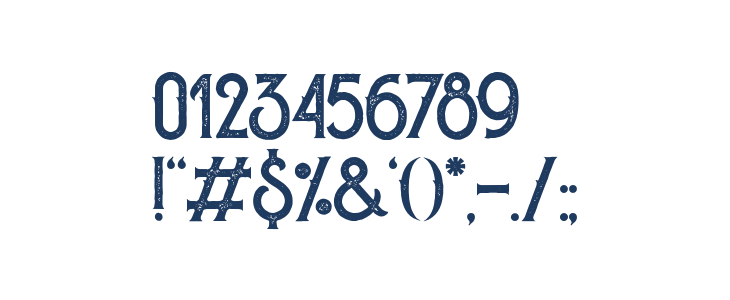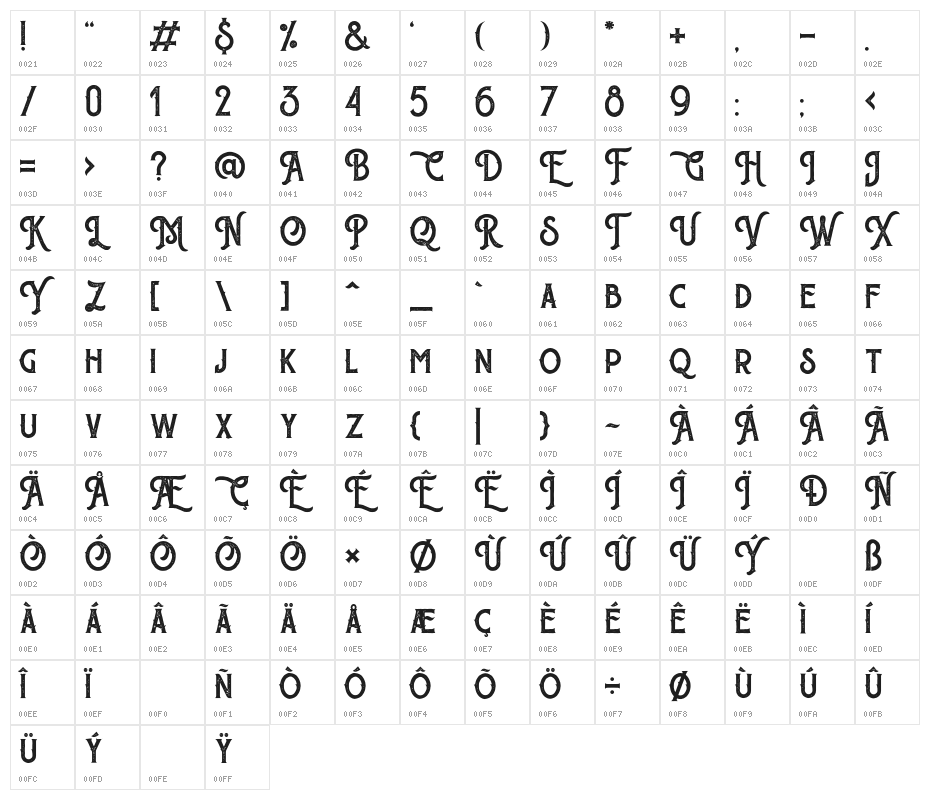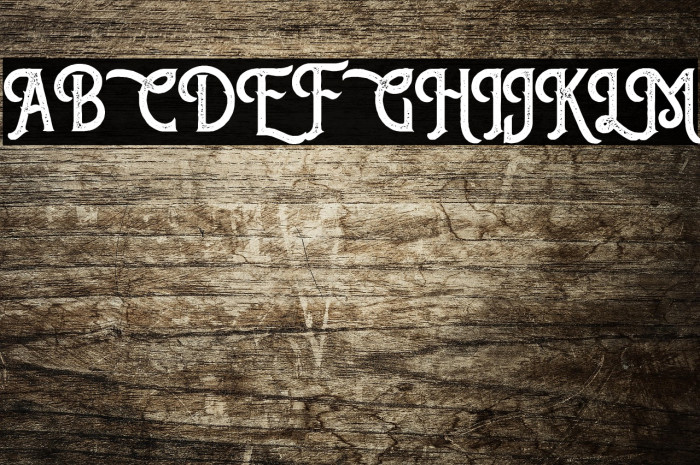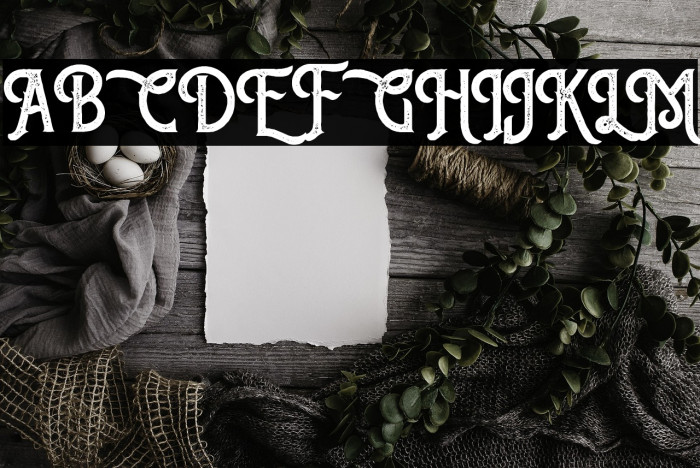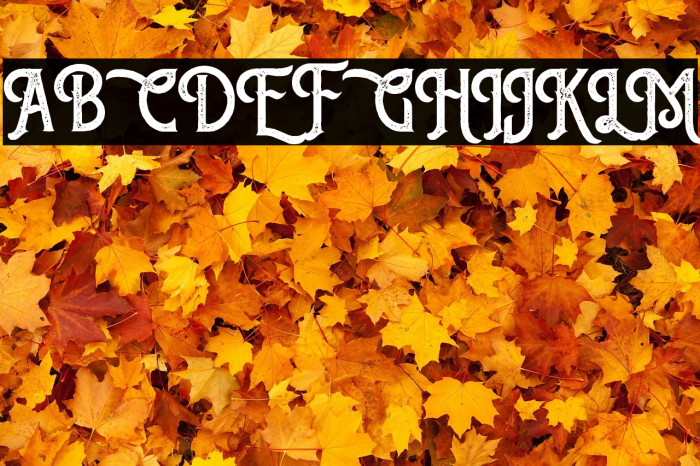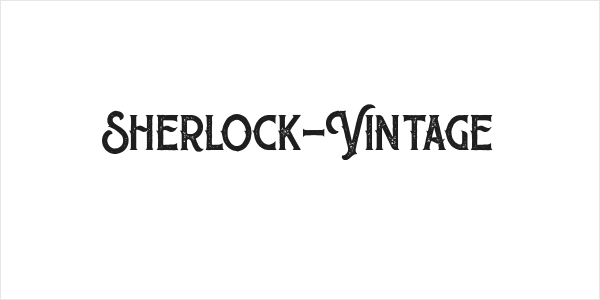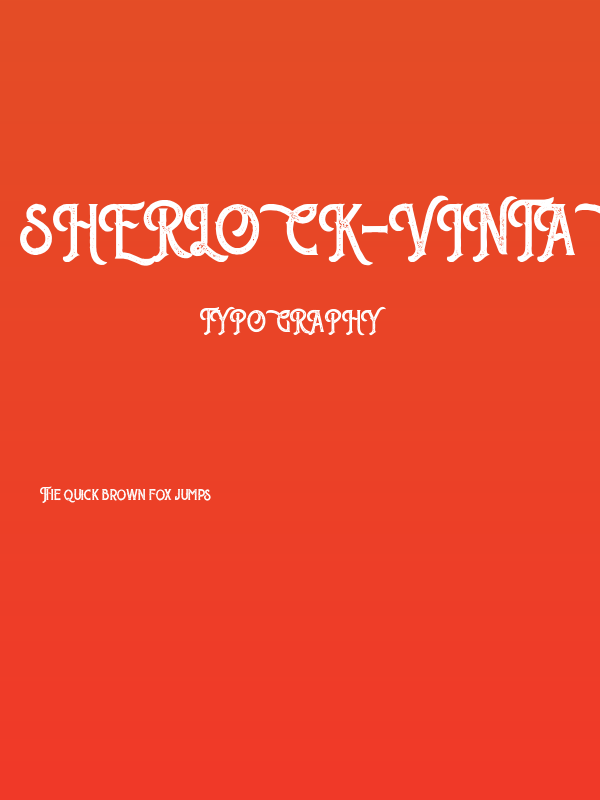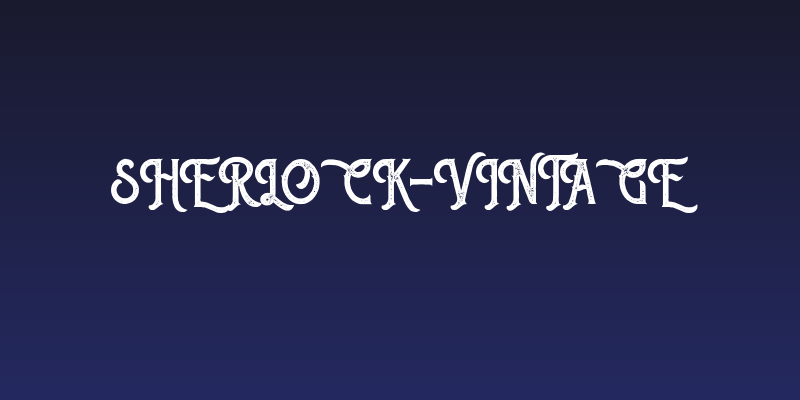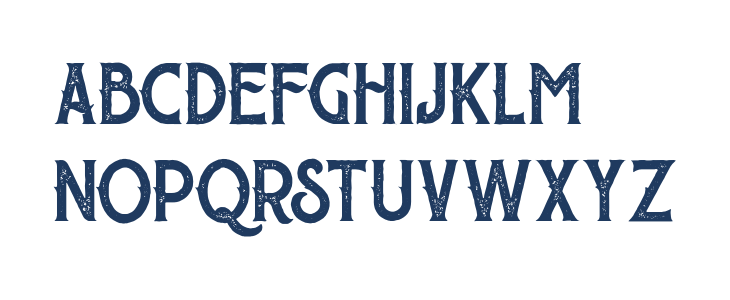
Sherlock-Vintage Font
Sherlock-Vintage Description
This font features a vintage, distressed style with a decorative flair. The uppercase letters have an ornate quality, with flourishes and unique serifs that give them a classic, old-world charm. The lowercase letters maintain a consistent style, complementing the uppercase with their own subtle embellishments. The numbers are bold and clear, yet retain the same distressed texture, making them stand out. Special characters are designed with the same attention to detail, ensuring they fit seamlessly with the rest of the font. This font's overall appearance is reminiscent of antique signage or vintage posters, making it ideal for projects that require a touch of nostalgia or historical elegance.
Overall StyleVintage
Use CaseHeadlines, Logos, Decorative text
Proposed ProjectsIdeal for vintage-themed posters, historical event invitations, retro branding, and decorative signage.